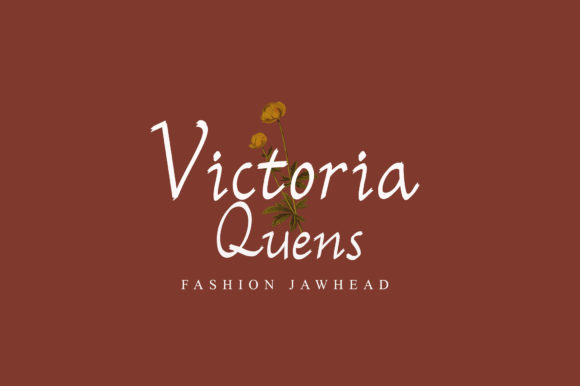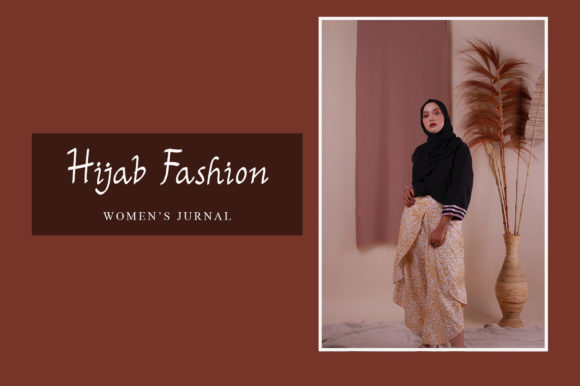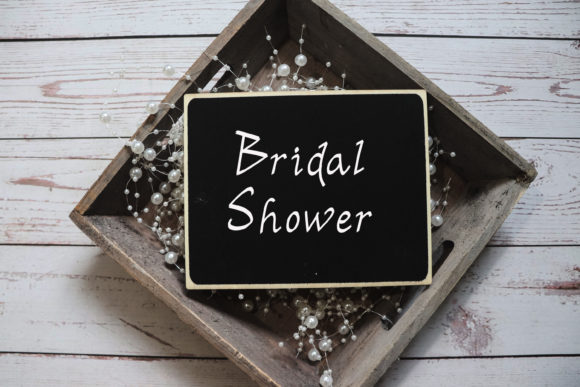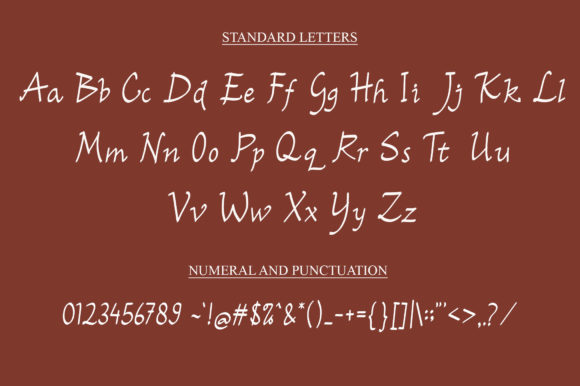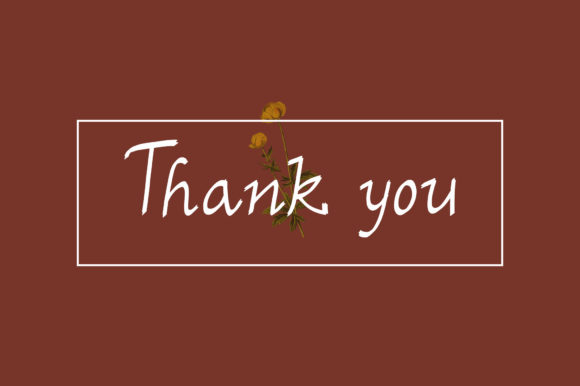
Larisa Font
About Larisa Font
Larisa is a cute handwritten font that adds a touch of playfulness and liveliness to your designs. With its charming and whimsical style, it’s the perfect choice for projects that require a fun and vibrant look.
The handcrafted nature of Larisa gives it a unique and personal feel. Its imperfect and uneven letterforms evoke a sense of spontaneity and creativity. This font is designed to capture the essence of handwritten text, adding warmth and personality to your designs.
Whether you’re creating greeting cards, posters, invitations, or any other design that needs a joyful touch, Larisa can bring that extra spark. Its cute and full-of-life style is sure to brighten up your designs and engage your audience.
Larisa works well with various design themes, from children’s projects and playful branding to social media graphics and more. Its versatility allows you to explore different creative possibilities and make your designs stand out.
The lively and energetic character of Larisa makes it an excellent choice for projects that aim to evoke positive emotions and create a cheerful atmosphere. It’s a font that can instantly add a touch of charm and delight to your designs.
In conclusion, Larisa is a cute handwritten font that brings a sense of playfulness and liveliness to your designs. Its sweet and full-of-life style is perfect for brightening up various projects and adding a personal touch. With Larisa, you can create designs that are fun, engaging, and full of personality.